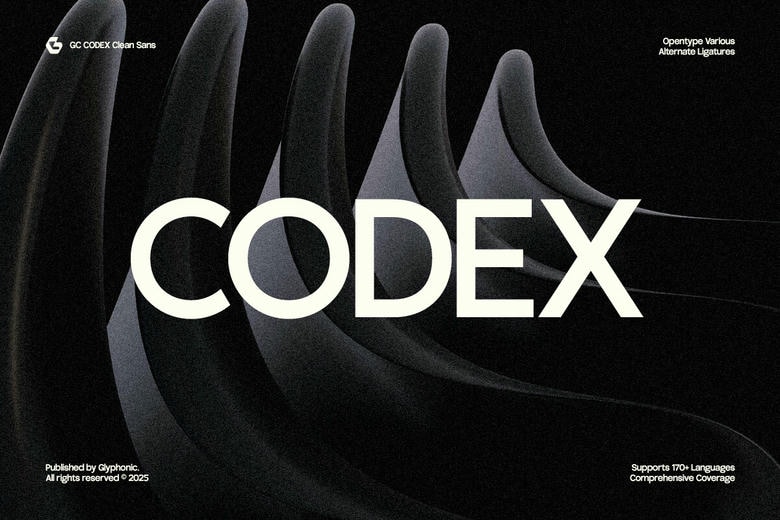
Gc Codex Font
GC Codex is a squared sans-serif typeface in the neo-grotesque style, which successfully combines geometric accuracy and the modern straightforwardness. It was designed in a way that speaks to designers seeking the balance and simplicity of a typeface, it is ideal to be used in headlines, branding, logos, digital U/Is, packaging, and editorial layouts. Its minimalist design and assertive tone share the reasons why it is regularly used to achieve a high impact in the visual communication process.
The high stroke uniformity, the clear and sharp terminals, the slightly soft edges make GC Codex perfect, clean and professional like, but not too dry. Be it the work on the tech brands, futuristic posters or minimalistic web design this typeface provides unrivaled versatility and clean design.
Gc Codex Sans Serif Font